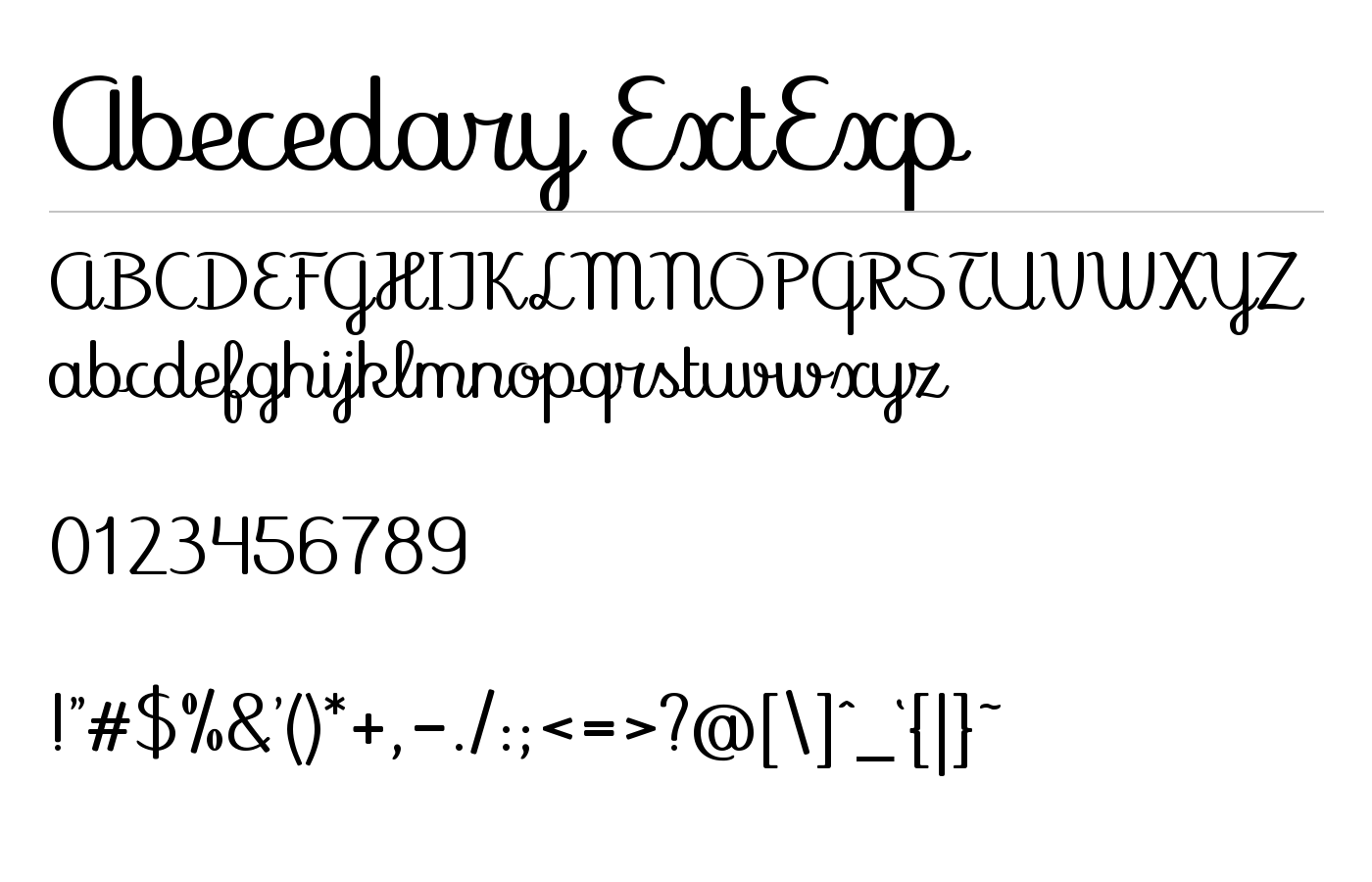
Abecedary is a delicate, script-inspired sans serif font featuring slender, smooth strokes with a playful yet elegant character. Its consistent thin weight, moderate x-height, and distinctive looping terminals give it a friendly and artistic feel, making it ideal for creative branding, invitations, and stylish editorial projects. This font works best in display sizes where its unique letterforms and graceful curves can shine.
Abecedary Font
About Abecedary Font
| Font family | Abecedary Font |
| Designer | Yves Michel |